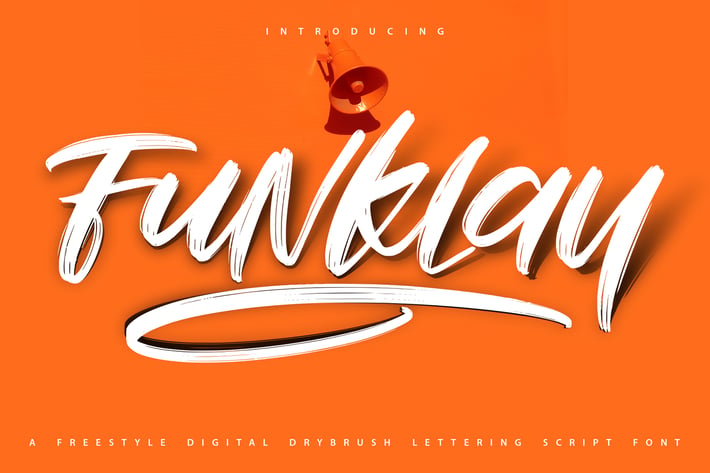
Funklay | Drybrush Lettering Script Font
Funklay | Drybrush Lettering Script Font with a calligraphy style, So beautiful on invitation like greeting cards, branding materials, business cards, quotes, posters, and more!